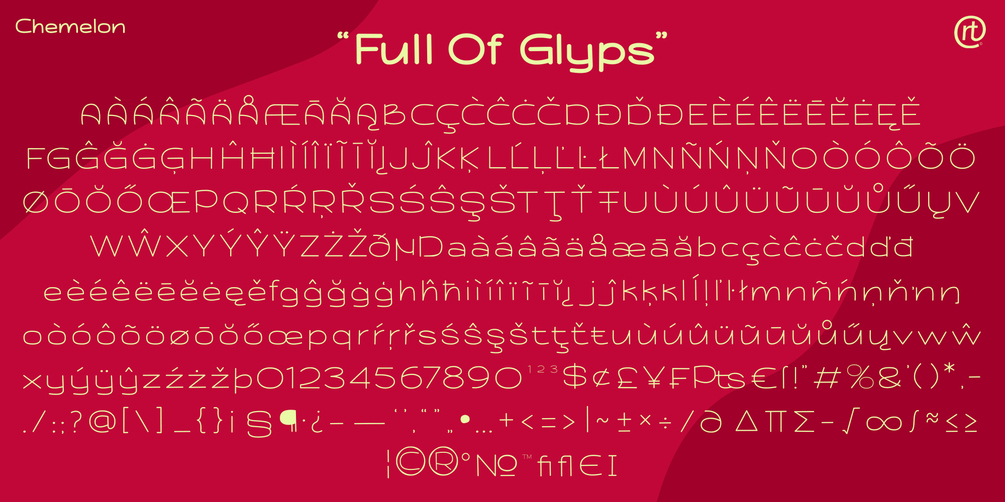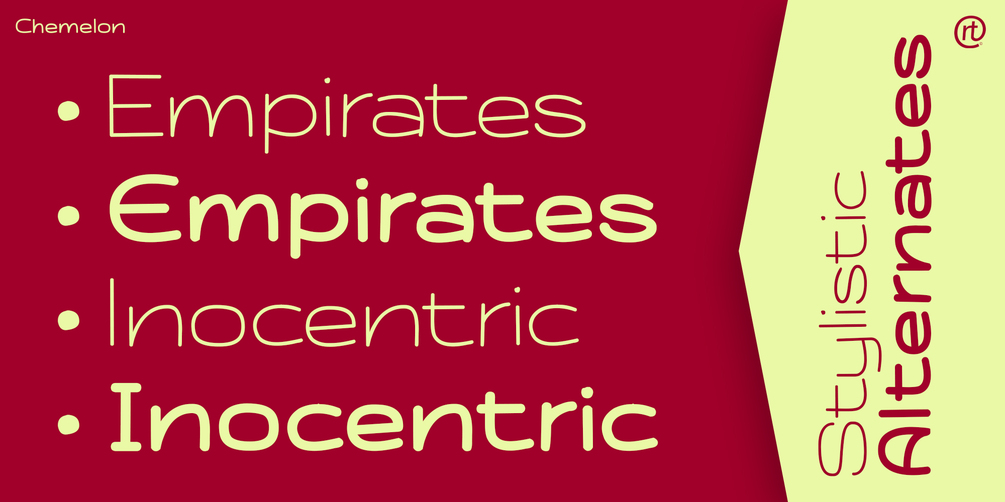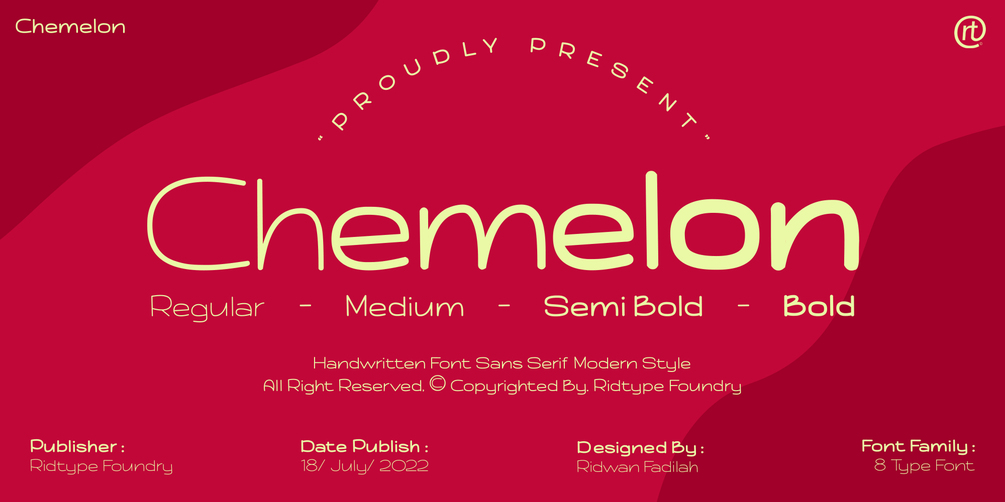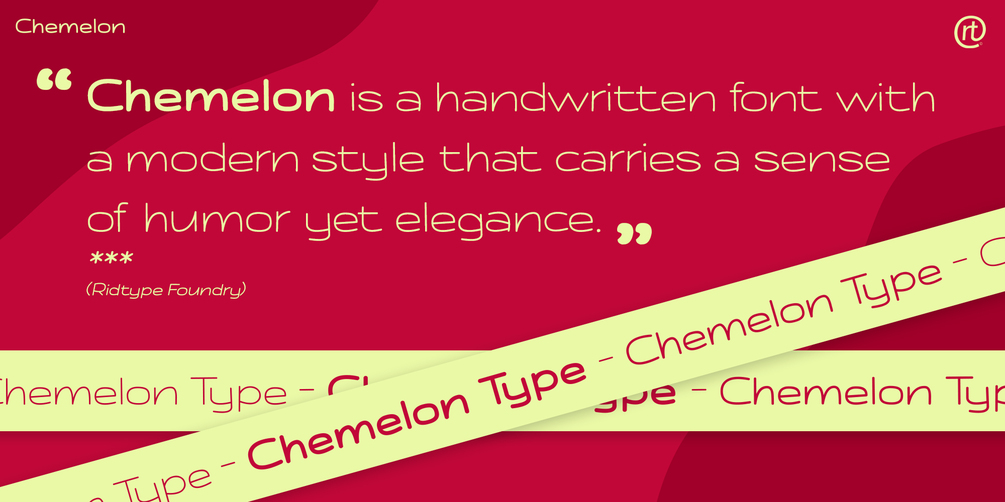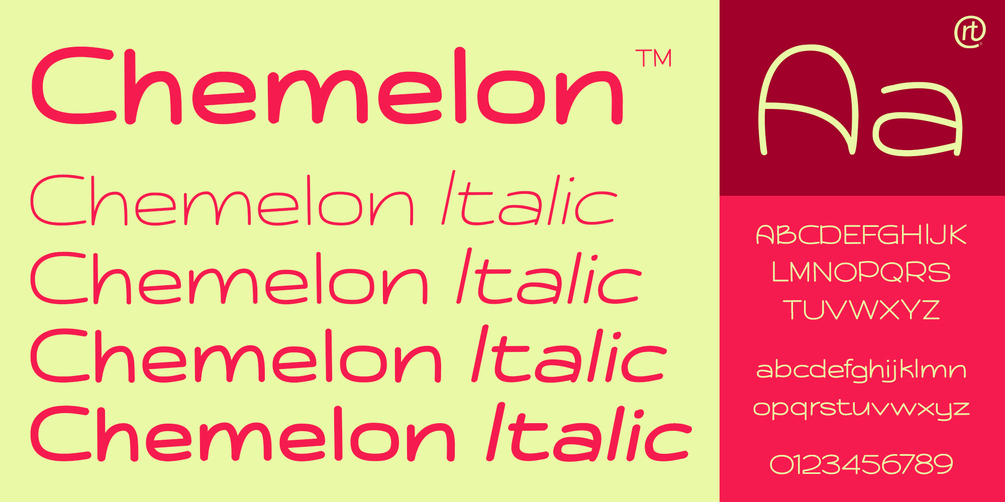
Chemelon
Chemelon is a handwritten font with a modern style that carries a sense of humor but is still elegant.
This font also supports Alternative, Ligature, and Multilingual (Other languages) for use in certain countries. And then this font is suitable for Small/ Big project.